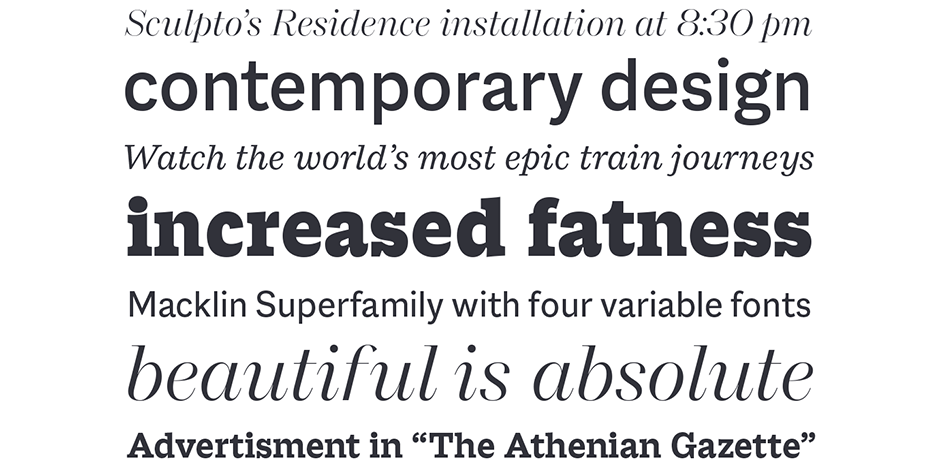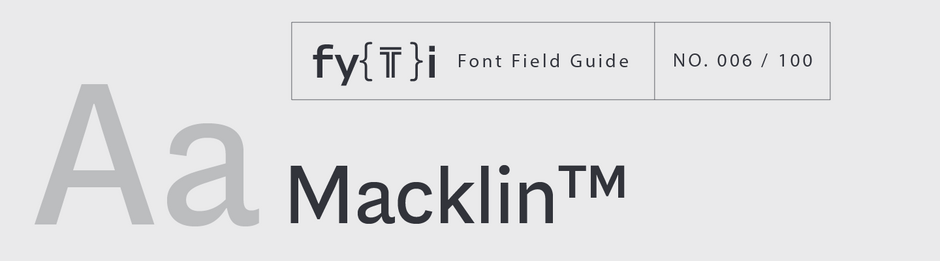
Macklin Font Field Guide
Best Practices
The Macklin family is a strong, adaptable family that is excellent for branding, headlines and other display uses. The simple shapes, open counters and apertures are wide and clear make it a good choice for short blocks of text copy in both print and on-screen environments. The lightest and boldest weights create inviting banners and headings, while the midrange designs are perfect for navigational links, sub heads and blocks of copy
SUPERFAMILY
The superfamily designed by Malou Verlomme for Monotype Studio is available in Sans, Slab, Text and Display.
Font Facts
• Figgins is credited with developing the first commercial slab serif font, as well as being among the first type founders to sell a sans serif font.
• In addition to the four styles—Sans, Slab, Text, and Display—Macklin includes a variable font that allows designers to define the weight and contrast.
• The different families of Macklin are meant to be combined.
Roots
Macklin was inspired by the work of British typographer Vincent Figgins. Figgins may not be familiar to those outside the world of type, but he played a key role in the evolution of typography in the late 19th century. He’s responsible for developing several type styles that emerged during that pivotal period, when typography moved off the page and into the street, in the form of adverts and posters.
Previously, typefaces had been largely constrained to books, but the arrival of advertising meant businesses were clamoring for typefaces that could grab the attention of passersby and help sell their wares. Verlomme dived deep into Figgins’ work while researching Macklin, but this typeface is explicitly not a historic revival. Macklin pays respect to Figgins, but puts a distinct twist on its typographic predecessor, pushing the family to a place that’s more suited to contemporary use.
Legibility
From text to display sizes, from casual to luxurious, the four different families of Macklin (Sans, Slab, Text, Display) offer a broad palette for visual expression.
How To Spot Macklin